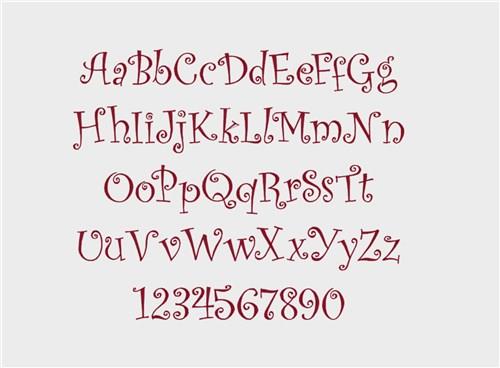
Curly Embroidery Font - Whimsical Decorative Lettering - Home Format - PES, DST & 6 formats by Artsy Knots and other embroidery fonts available at EmbroideryDesigns.com.
Artsy Knots is happy to present Curly Embroidery Font - Whimsical Decorative Lettering - Home Format - PES, DST & 6 formats machine embroidery font which has The curly design of this machine embroidery font adds a playful touch, perfect for fun projects on cushions or decorative items. Available in PES, DST, and six other formats. included. If you would like to view more embroidery fonts and alphabets please search our embroidery fonts page.
Curly Embroidery Font - Whimsical Decorative Lettering - Home Format - PES, DST & 6 formats